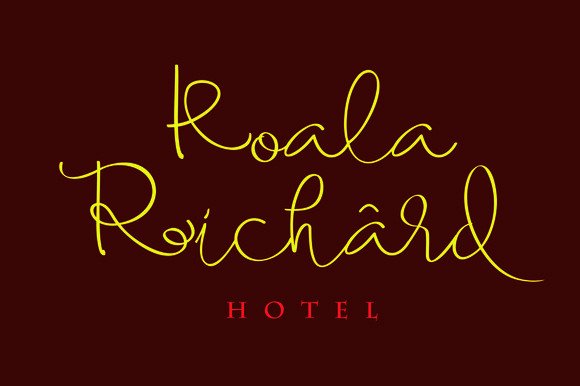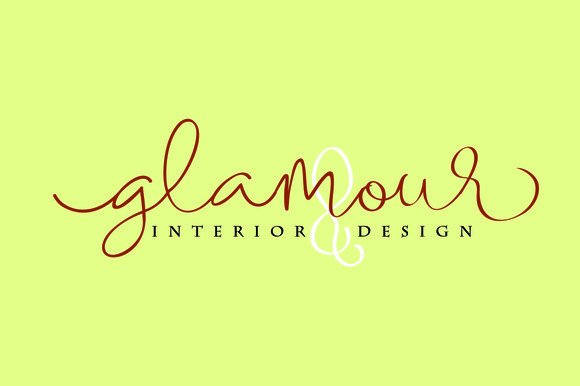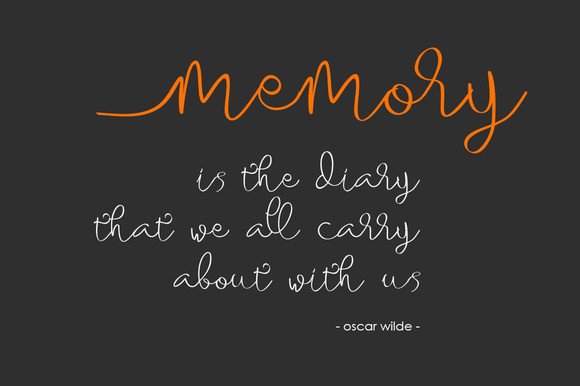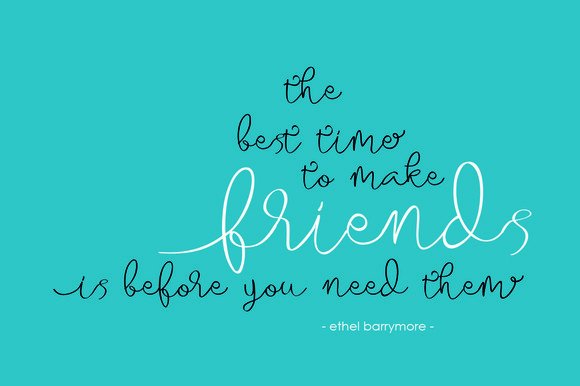
Enter Almarhum Font, a stunning monoline font that exudes a relaxed and casual vibe. This gorgeous font is designed to bring a sense of serenity to any design, making it perfect for a wide range of projects, from branding to editorial content. With its elegant lines and subtle sophistication, Almarhum Font is a valuable asset for any designer looking to add a touch of refinement to their work.
- Font Family: Almarhum Font is a unique, multi-style font family consisting of 5 different font styles.
- Unique Characteristics: Almarhum Font features a distinctive, elegant design with intricate details and ornate flourishes, making it suitable for formal and luxurious designs.
- Language Support: Supports a wide range of languages, including Latin, Cyrillic, and Arabic scripts, allowing for global design applications.
Overall, I find the Almarhum font to be quite striking. The unique combination of rounded and geometric elements ✨ gives it a distinct feel that sets it apart from more traditional fonts. Its use of contrast and subtle texture also adds depth and visual interest.
Some of the font’s strengths include its versatility, as it can be used effectively for both body text and display headings ✨. Additionally, its wide range of weights and styles offers a lot of flexibility for designers looking to create a cohesive visual identity.
- ⚠️ Legibility can be an issue at smaller font sizes, particularly in body text. The font’s unique elements can sometimes make it difficult to read quickly.
- ⚠️ The font’s bold weights can feel somewhat cramped, particularly in headings. This can make them difficult to read in certain contexts.
Despite these limitations, I believe Almarhum has a lot to offer designers looking to add some visual interest to their projects. Its unique blend of style and functionality makes it a solid choice for a wide range of applications.
Almarhum Font is ideal for:
- Creating elegant and sophisticated designs.
- Adding a touch of luxury to your branding materials.
- Designing formal invitations, certificates, and other official documents.
For optimal results, pair Almarhum Font with high-quality images and bold graphics to create a visually striking effect.